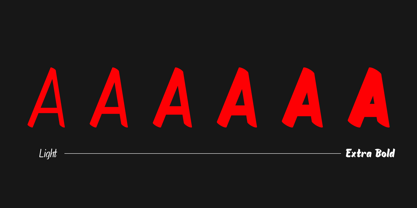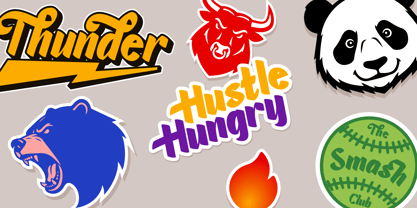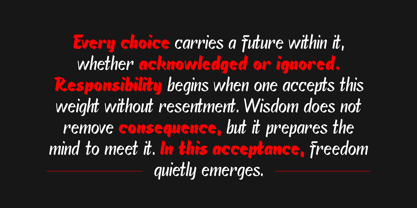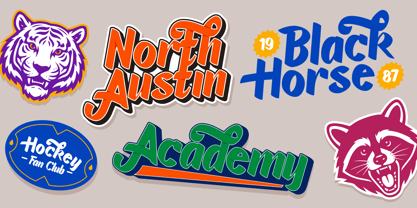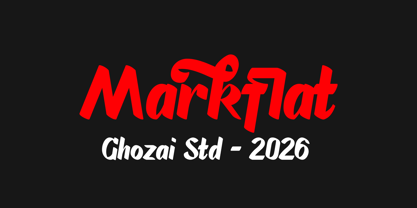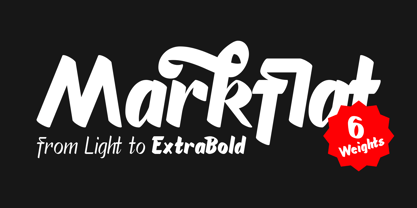
Markflat
por Ghozai Studio
La familia tipográfica Markflat fue diseñada por Manzur Ghozaali y publicada por Ghozai Studio. Markflat contiene 12 estilos y opciones de paquete familiar. Más información sobre esta familia
Markflat is a dynamic, marker pen-inspired font with an edgy, italicized, modern design similar to bold flat marker pen strokes. Markflat is available in 6 weight from light to Extra Bold. Its wide weight and energetic style is perfect for large display text that demands attention. Featuring a variety of ligatures and alternate stylistic sets, this font creates a natural, handwritten look that adds personality and flair to your designs. Ideal for projects in the sports, street, hip hop, and urban themes, Markflat is the perfect choice when you need an authentic handwritten aesthetic. The versatility of this font makes it suitable for both digital and print media. Whether you're designing posters, logos, or social media graphics, Strokelly will give your project an unmistakable, eye-catching edge.
Diseñadores: Manzur Ghozaali
Fundición actual: Ghozai Studio